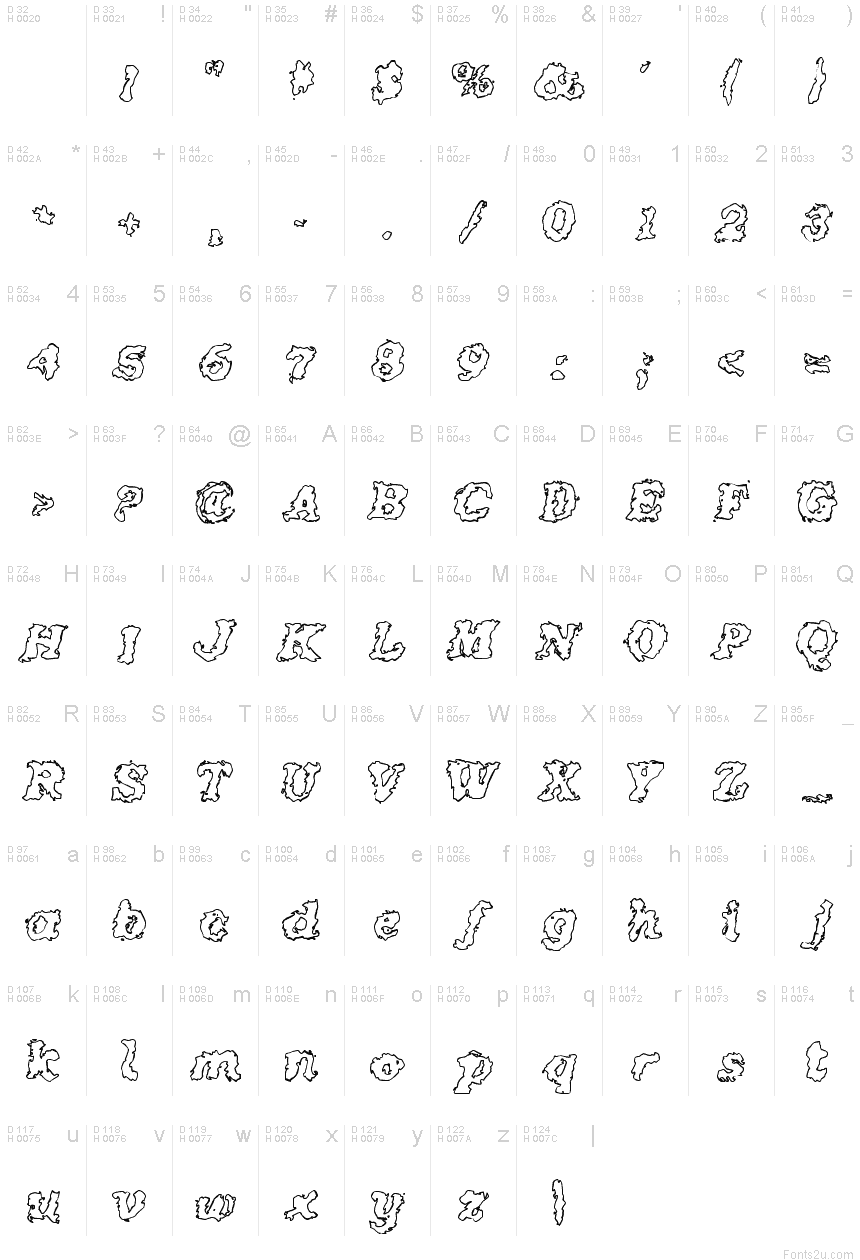
Crash Outline
Crash Outline font by dustBUST Fonts is a free horror outline display typeface with letters that look half-melted, half-splattered. Each shape wobbles like dripping ink or oozing slime, giving words a chaotic, hand-drawn energy that jumps off the page. The thin, uneven strokes keep it light and airy, so even big titles feel wild without getting too heavy or cluttered.
Using Crash Outline, you can nail grungy posters, Halloween invites, zines, garage band logos, haunted house signage, and edgy social graphics. This free font shines on short, punchy words set large, where its jagged rhythm can really breathe. Pair it with a clean sans serif for body text to keep layouts readable while the crunchy outlines grab all the attention.